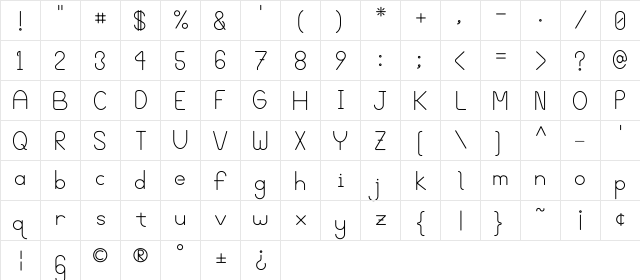
BloomingGrove Medium
Design Context for BloomingGrove Typeface
BloomingGrove offers clean, dependable letterforms without strong stylistic allegiance, making it a practical choice for designers who need flexibility.